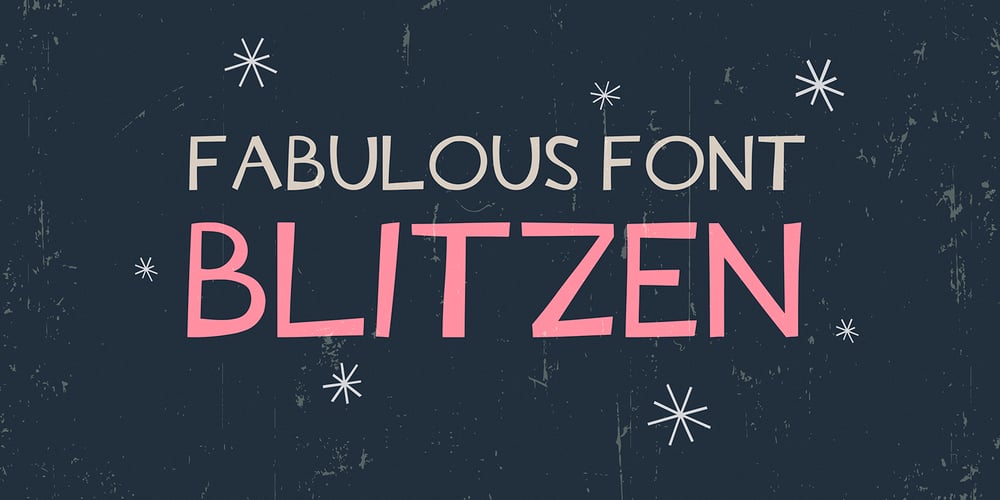
Blitzen
Blitzen font
Blitzen Font Family was designed by Anastasia Kuznetsova and published by Anastasia Kuznetsova. Blitzen contains 1 styles and family package options. Introducing the Blitzen font! Blitzen is a fabulous and playful but striking font. These are massive, hand-drawn letters that are guaranteed to stand out, whether on lighthearted product designs or more spectacular quote designs. Ideal for quotes, lattering projects, packaging of goods… so many things!Font FeaturesA-Z; a-z character set;1 language (English);numbers and punctuation marks, symbolsA font containing uppercase and lowercase letters, numbers, and a wide range of punctuation marks.Fonts can be opened and used in any software that can read standard fonts, even in MS Word. No special software is required, and to get started.It is recommended to use it in Adobe Illustrator or Adobe PhotoshopMade with love ♡